Custom Dusty Grunge Font Vector Treatment
Just because we’re working in Illustrator doesn’t mean we have to create clean geometric artwork all the time. With just a couple tips and some custom artwork you can create 100% vector artwork that is grainy, dusty, and dingy – an awesome grunge font vector. Plus, these grunge font vector techniques are easy to apply to all kinds of graphics other than typography.
- Topics Covered: Live Trace, Live Paint Bucket, Grain Effects
Final Image: Grunge Font Vector
Below is the finished grunge font vector treatment we will be completing. Yours will probably look different but this is not a bad thing!
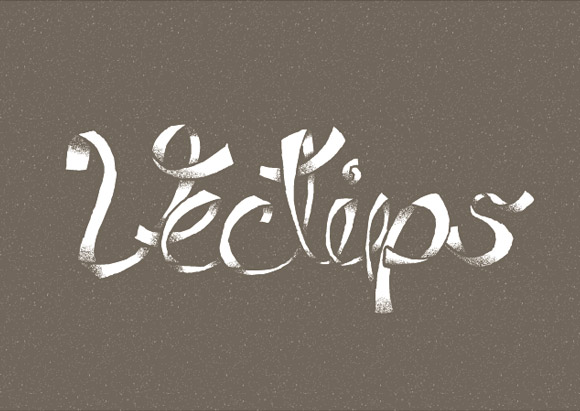
Step 1
For the first step you need for this grunge font vector tutorial is to go sans-computer and create some custom artwork. Create some type with paper and anything that makes a mark. I like using Pigma’s Brush Pen and my trusty Moleskine. If you are not that comfortable with creating custom type, you can print out some type from Illustrator at 20% black and trace with your pen, marker, or whatever you are using.
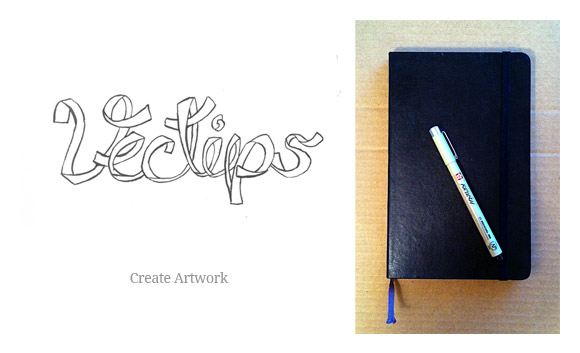
Step 2
Scan your custom artwork and in an image editor, adjust the contrast as much as possible without loosing detail, and save someplace you’ll remember in your computer. The start of your grunge font vector!
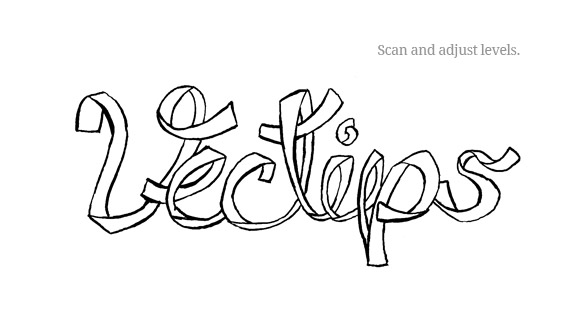
Step 3
Now we can actually take this grunge font vector into Illustrator! In a new document, place you scanned image, select it, and open Illustrator’s tracing options from the Control panel. I like to keep the trace pretty close to the original so I use the setting below.
- Mode = Black and White
- Threshold = Adjust depending on your scan. I usually keep mine at the default 128.
- Blur = 0
- Fills = Checked
- Strokes = Unchecked
- Path Fitting = 1
- Minimum = 1
- Corner Angle = 1
- Ignore White = Checked
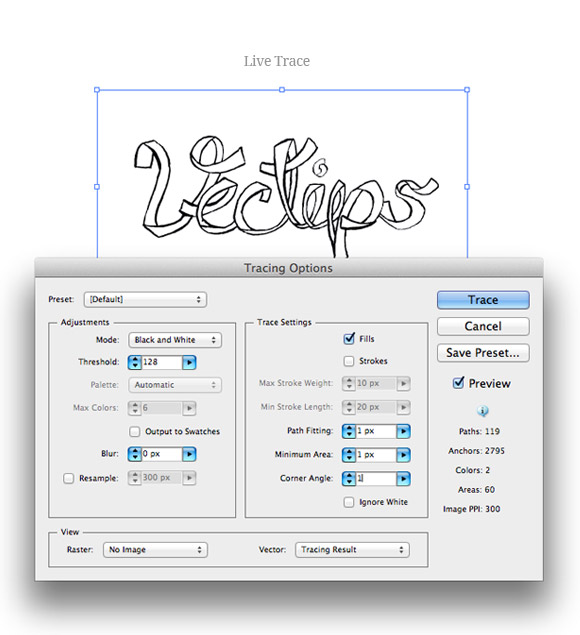
Step 4
Press the Live Paint Button from the Control panel and use the Live Paint Bucket tool (K) to fill the enclosed areas of your grunge font vector with a color. The color doesn’t have to be anything aesthetically pleasing, just something to distinguish from the the other outlines and artboard.
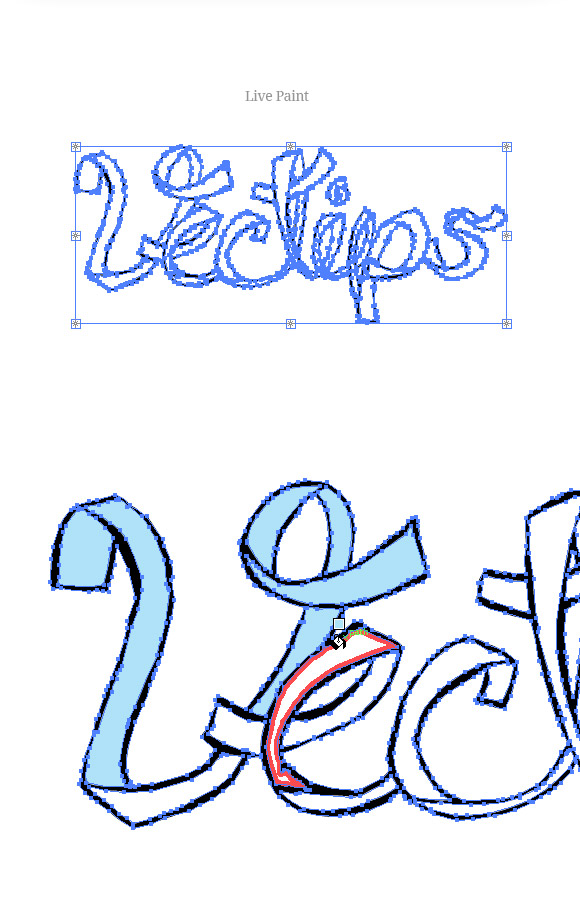
Step 5
Expand the Live Paint Group and Ungroup all the objects. Use the Magic Wand Tool to select just the colored fill object. Cut these shapes and Paste In Front in two separate layers. You should now have a total of three layers in your grunge font vector. Label the first “Outlines”, the second “Shading” and the third “Color”.
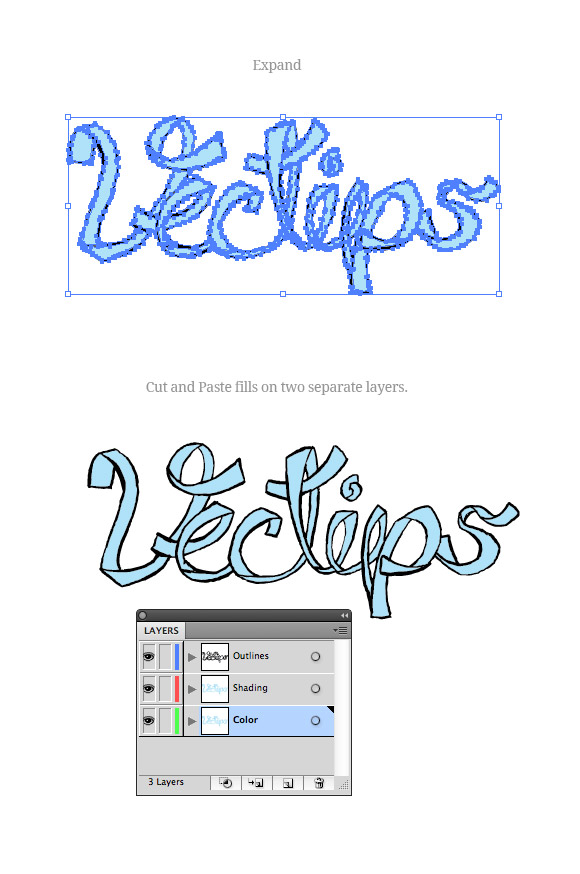
Step 6
On the “Shading” layer, select one of the colored fills, and fill it with a black and white linear gradient. Adjust the gradient so the direction mimics your designated light source. With the gradient selected, choose Effects > Grain. In the Grain dialog, change the Intensity to 0, the Contrast to 50 and the Grain Type to Stippled.
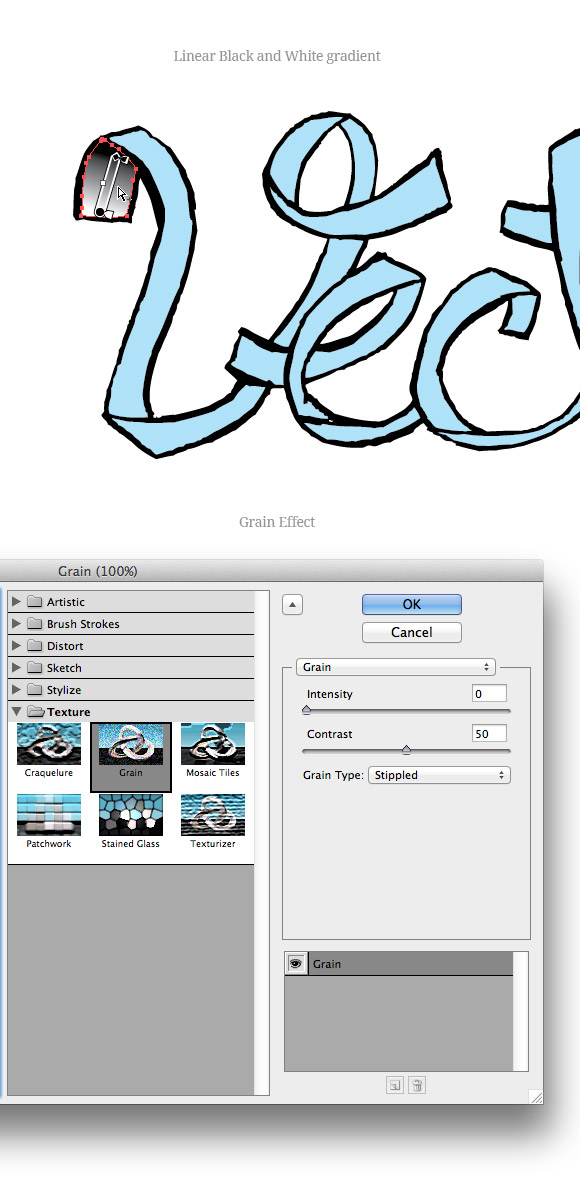
Step 7
You are going to be doing these steps a number of time and to make it go a little more quickly, I suggest saving a Graphic Style with your gradient grain styling. With the new gradient grain object selected, click the New Style Graphic Style button in the Graphic Styles panel.
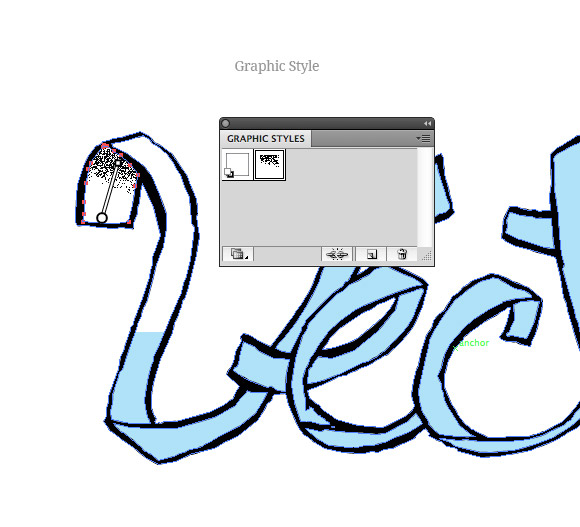
Step 8
Expand the Appearance of the gradient grain and trace the expanded image using the same Live Trace settings as before expect change the Path Fitting to .5 px. Expand it and you are done with the first one!
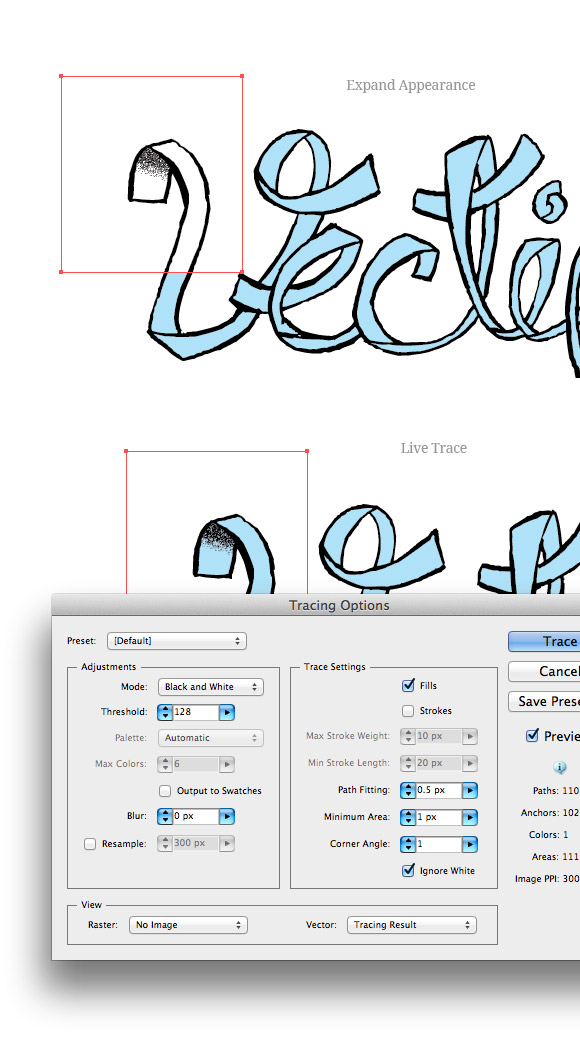
Step 9
Apply your graphic style to the next shape in your grunge font vector, adjust the gradient, expand, and trace. Repeat these steps until you have completed all the shapes. Look at that awesome grunge font vector! So unique.
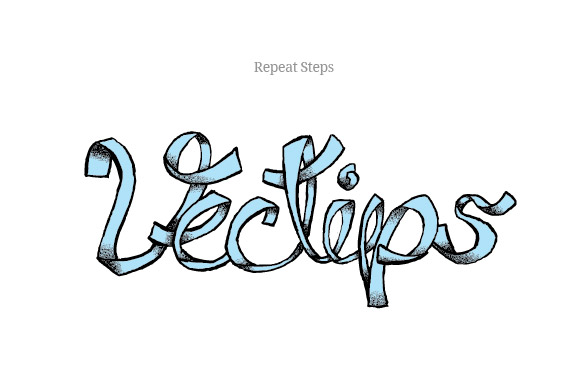
Step 10
In another layered called “Background”, create a rectangle and fill with your desired color.
Step 11
Create a 50×50 px rectangle and fill it with a 57% black. Apply the same Grain effect as before, expand the effect, and trace it with the same setting as the previous grain trace. Expand the trace and scale the texture to 100x100px. Change the fill to White and drag the texture into the swatches panel. This will create a nice seamless texture swatch. The tiling is not perfect, but it is good enough for this project.
Step 12
Select the background color, apply the new pattern swatch to a new fill layer in the Appearance panel, and change the opacity to your liking. Change the color of you “Color” layer to White and the “Outlines” and “Shading” To your background color. You’re done with your custom grunge font vector!
Applying the techniques of your grunge font vector
I really suggest you to try these grunge font vector techniques on other projects and not just recreate the tutorial. If you’re like me, you will really learn how to utilize and understand the steps when applying them to something totally different than the final result of the tutorial.